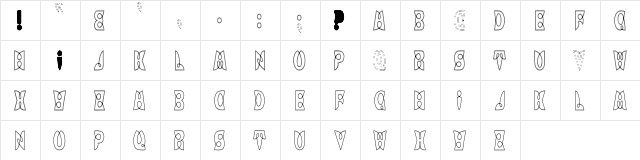
LoopDeLoopHC Regular
Design Context for LoopDeLoopHC Typeface
LoopDeLoopHC is a composed and adaptable typeface that performs quietly and consistently across a wide range of design contexts.